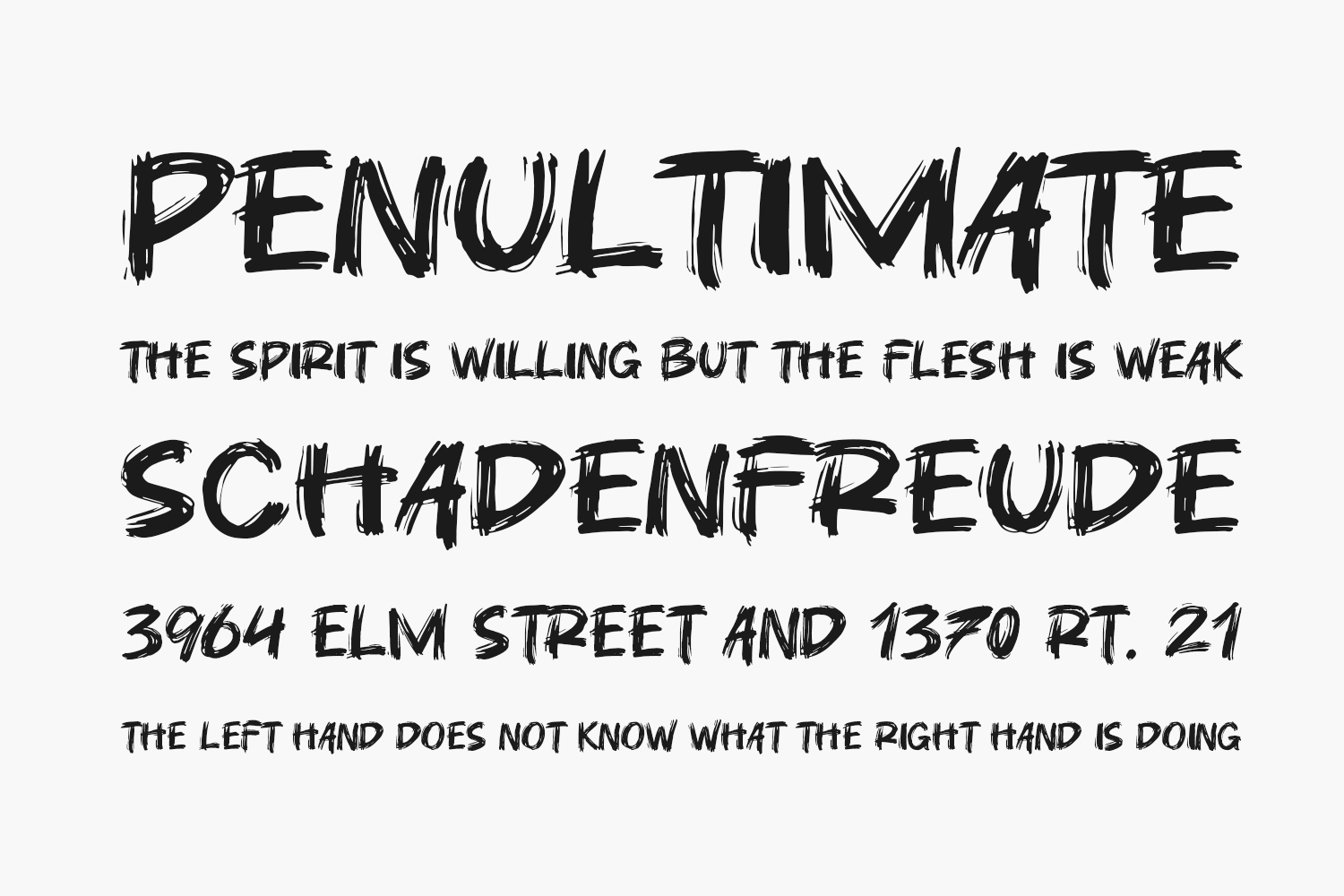
Runtoe – Free Bold Brush Display Font with Raw Energy
Runtoe is a dynamic brush-style display font by Khurasan, featuring bold, expressive strokes and rugged textures that give it a raw, artistic. Perfect for posters, logos, banners, magazines, book covers, and social media graphics, Runtoe adds character and impact to your creative projects. Offered in TTF/OTF, it’s free for both personal and commercial use under a generous license.
Why Choose Runtoe?
- Expressive Brush Style: Bold, hand-painted strokes with rugged texture deliver visual energy.
- High Impact: Thick lines and dynamic forms make it ideal for attention-grabbing headlines.
- Versatile Creative Use: Suits posters, street-style branding, album art, editorial spreads, and more.
Where to Use Runtoe?
- Posters & Banners: Makes bold, eye-catching headlines for events and promotions.
- Logos & Branding: Adds handmade flair to creative brands and street-style identities.
- Magazine & Book Covers: Stands out on covers with dynamic brush strokes.
- Social Media Graphics: Filters no—raw overlays, YouTube thumbnails, and Instagram stories.
- Album Art & Merchandise: Expressive typography that complements music releases and merch designs.
Design Tips with Runtoe
Use at heading level (30 pt+ / 40 px+) to show off its texture and stroke detail. Pair with clean sans‑serifs like Forgotten Futurist or Rhanoll for contrast. Embrace bright accent colors or gritty grunge textures in the background to match its raw aesthetic. Great in layered compositions with ink splatter or film‑grain overlays.